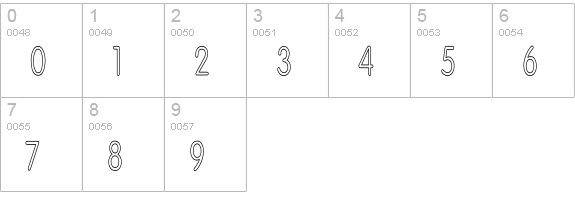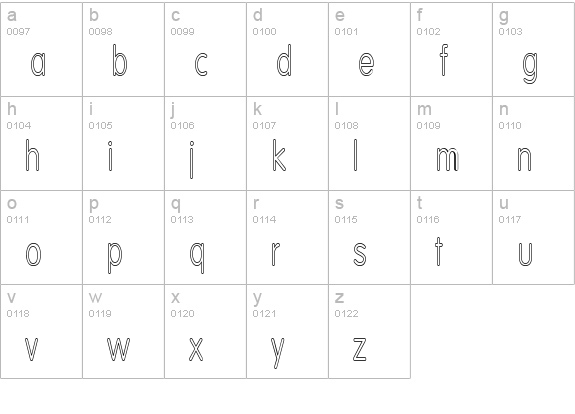
Introducing Vogue-NormalHC, a font that effortlessly combines elegance, sophistication, and modernity. This exquisite typeface is the epitome of refined style, making it the perfect choice for any design project that seeks to captivate and inspire. Vogue-NormalHC stands as a testament to the timeless beauty of typography. Its clean lines and graceful curves create a sense of harmony, while its subtle details add a touch of intrigue. Whether used for editorial layouts, fashion branding, or luxurious invitations, this font exudes an air of sophistication that is sure to leave a lasting impression. But what sets Vogue-NormalHC apart from the rest is its accessibility. This font is freely available to download at FontsMarket.com, allowing designers and creatives from all walks of life to elevate their work without any cost. It is a font that believes in the power of inclusivity, enabling everyone to embrace the beauty of typography and create stunning visual experiences. With Vogue-NormalHC, the possibilities are endless. Its versatility allows it to seamlessly adapt to a variety of design styles, effortlessly enhancing any project it graces. From high-end fashion magazines to elegant wedding invitations, this font brings a touch of class to every layout. So, if you're in search of a font that effortlessly combines elegance, sophistication, and accessibility, look no further than Vogue-NormalHC. Download it for free at FontsMarket.com and unlock a world of creative possibilities. Let Vogue-NormalHC be your trusted companion on your design journey, as you create captivating visuals that leave a lasting impression.